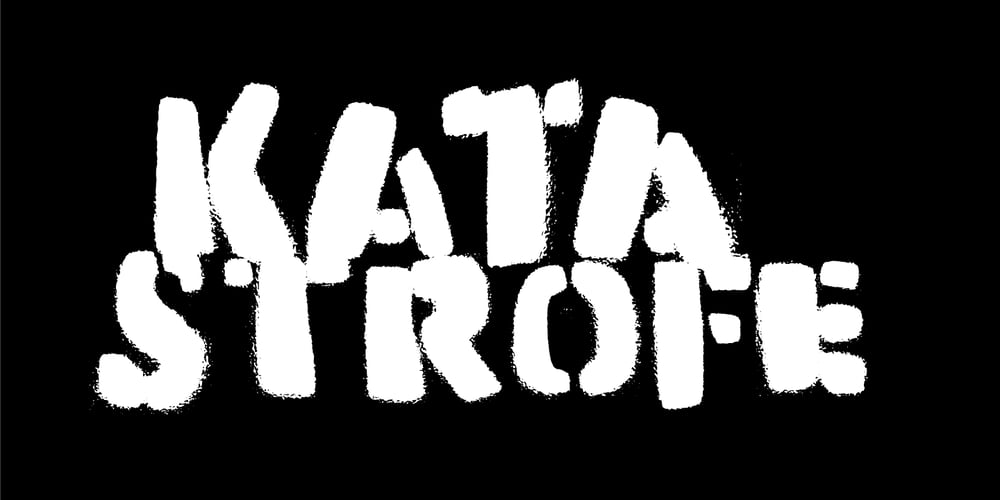
Katastrofe
Katastrofe font
Katastrofe Font Family was designed by Jakob Fischer and published by PizzaDude.dk. Katastrofe contains 1 styles and family package options. Katastrofe is danish for … well, catastrophe – you may have guessed that! This font was almost a catastrophe to make! I cut out all the letters in a cardboard, and went outside to spray the letters with a spraycan. Everything went smooth as planned, but suddenly the wind started to blow and the papers started to fly away! Luckily I found some stones I used to make the papers stay in place. Lucky for me – otherwise it would have been a catastrophe! Seconds after finishing this font project, it started to rain…I just avoided a catastrophe! But is this font really a catastrophe, or does it just mimic punk/spray/grunge/riot? Make your own statements using Katastrofe, or perhaps your very own punk sayings like “Punk is not dead”, “Anarchy Rebel” or what suits you the best. Whatever you choose to write, you will definitely get that real punk look! Perhaps you could even do a t-shirt print that says “Katastrofe” 🙂 Comes with different upper and lowercase letters along with alternate versions of each letter – and of course a lot of foreign letters, because punk is not dead and punk is universal!